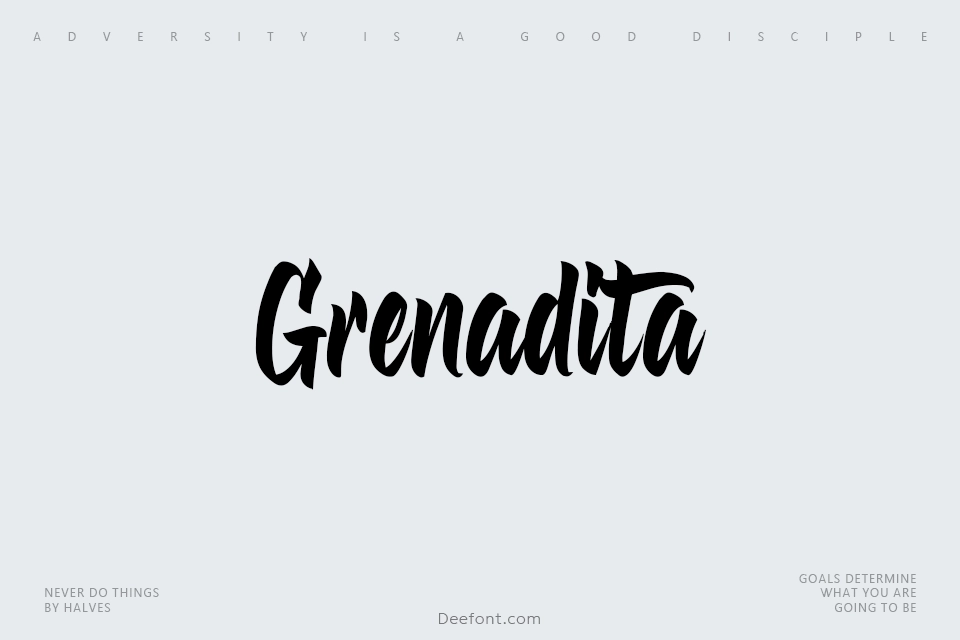
Grenadita Script Font
Grenadita Script is an elegant hand-crafted brush calligraphy font designed for brands that demand attention. Each stroke exudes personality and fluid motion, featuring natural brush texture that adds an organic feel and uniqueness. Perfect for logos, branding, packaging, social media content, invitations, wedding designs, and professional typography projects seeking authentic, expressive character.